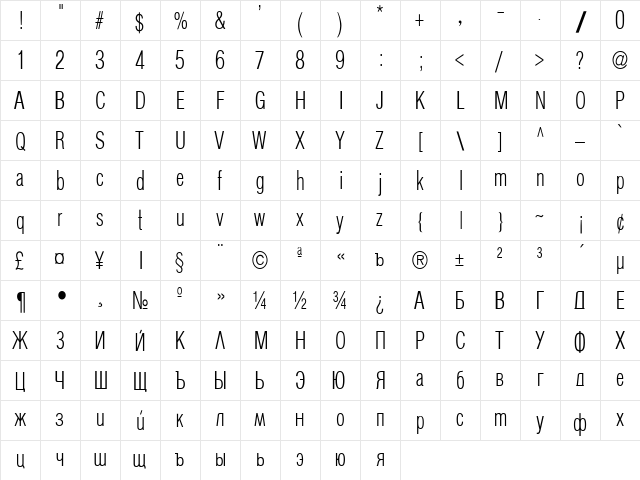
ApriD Light
Design Context for ApriD Typeface
ApriD offers clean, dependable letterforms without strong stylistic allegiance, making it a practical choice for designers who need flexibility. Its slender proportions lend an understated elegance to any composition.
Pro Tip: Use ApriD in both headline and body roles to test its range before committing to a single application.